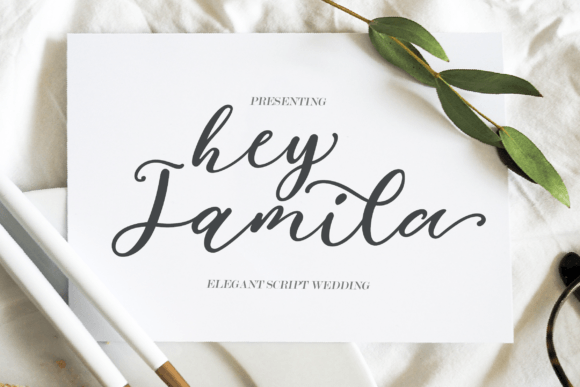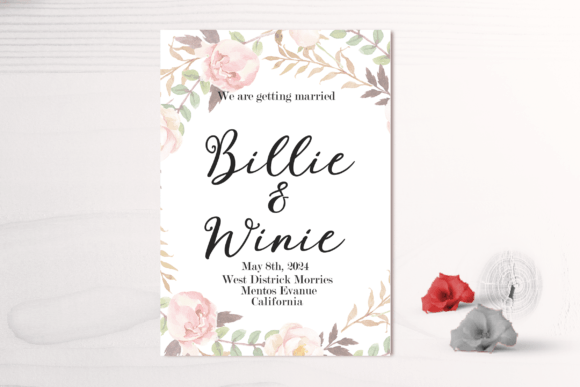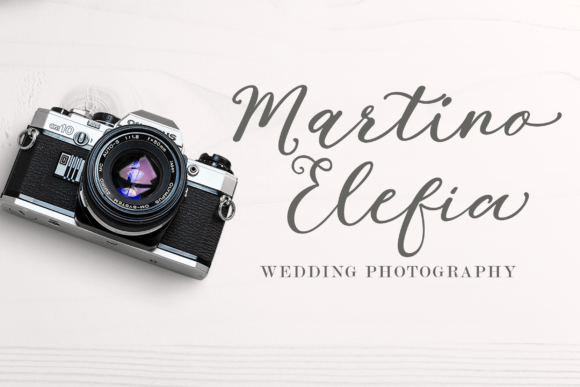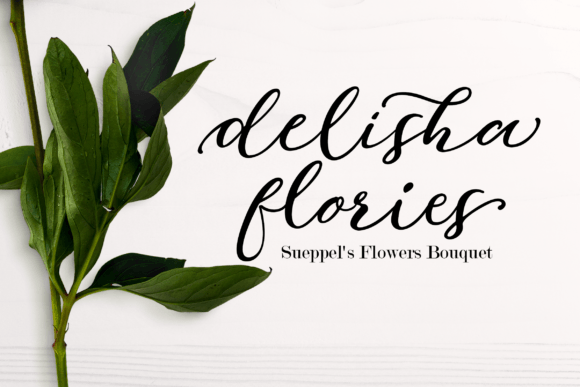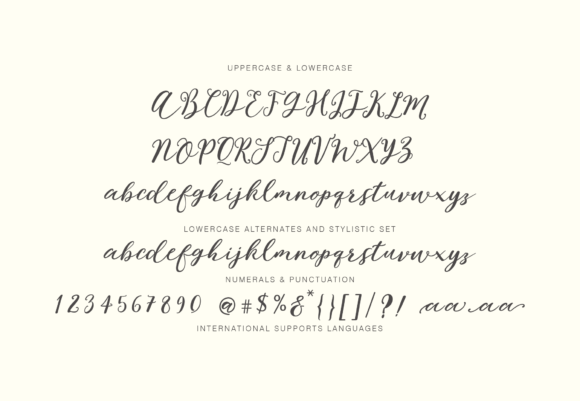
Hey Jamila Font
Introducing Hey Jamila, a modern calligraphy script font that has been meticulously crafted to bring beauty to every letter. With its contemporary script style, this font is a perfect choice for a diverse range of projects, including invitations, greeting cards, posters, name cards, quotes, blog headers, branding, logos, fashion, apparel, letters, stationery, and beyond.
Hey Jamila’s modern script style adds a touch of elegance to your text, making it suitable for various creative endeavors. Whether you’re designing invitations for special occasions, crafting eye-catching posters, or creating a stylish blog header, Hey Jamila enhances the visual appeal of your text with its carefully designed characters.
The versatility of Hey Jamila extends to branding and logo design, providing a fresh and stylish choice for businesses or projects looking to establish a contemporary and memorable identity. The font’s modern script conveys a sense of sophistication and creativity.
For fashion and apparel projects, Hey Jamila offers a trendy and fashionable aesthetic, elevating the overall design. Its adaptability ensures that it complements diverse design elements, making it a valuable asset in the world of fashion and design.
This font’s PUA encoding is a noteworthy feature, granting easy access to all glyphs and swashes. This encoding system enhances the user experience, allowing for effortless exploration of various characters and stylistic elements to add personalized touches to your designs.
In summary, Hey Jamila is not just a font; it’s a modern calligraphy script that brings a touch of beauty and contemporary elegance to your projects. Download now to infuse your designs with the stylish charm of Hey Jamila, creating visually captivating expressions across a wide range of applications. With its carefully crafted letters, Hey Jamila becomes a creative tool that elevates your text to new heights of aesthetic allure.